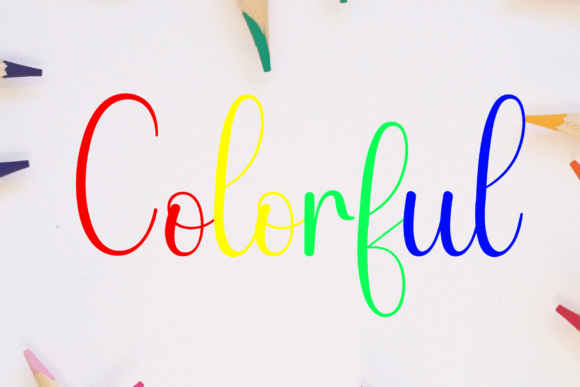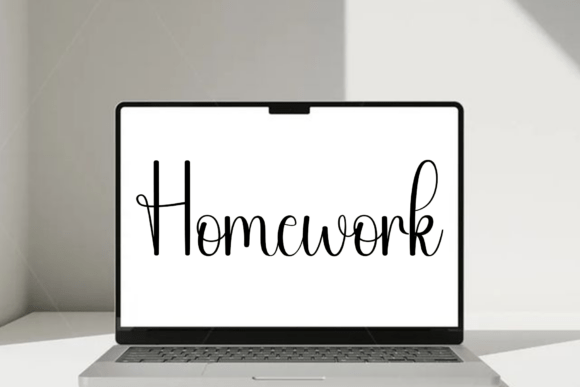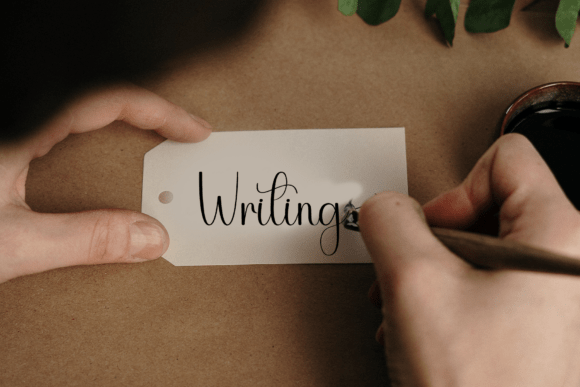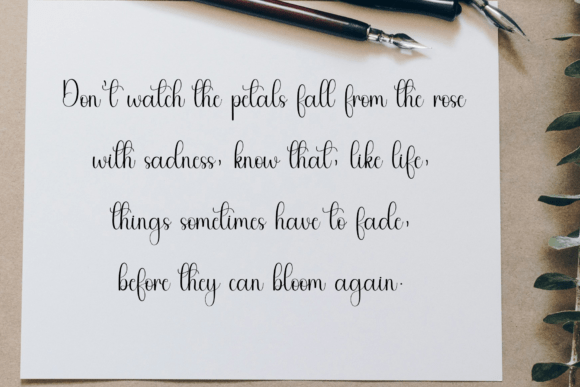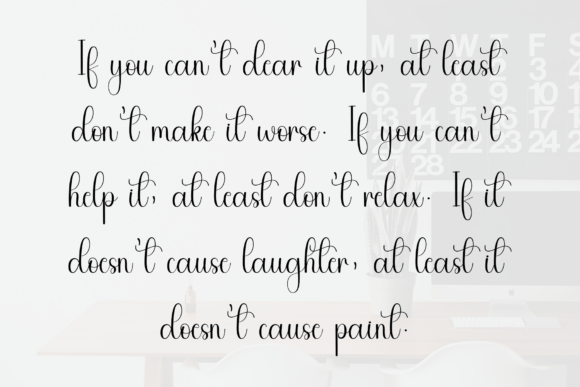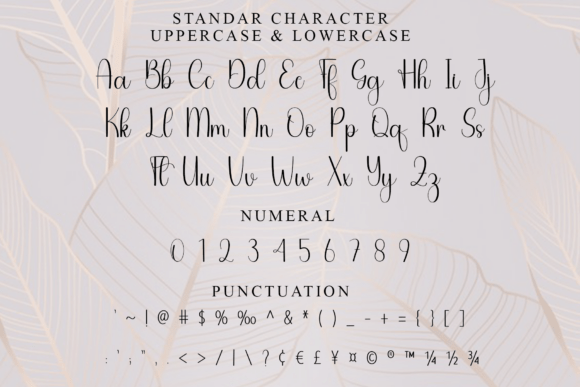
The Perfect Dance Partner for Your Designs: Introducing Ballerina Font
Have you ever stared at a blank page, eager to bring your creative vision to life, only to be halted by the daunting task of choosing the perfect font? You’re not alone. Finding the right typography can make all the difference between a lackluster design and a breathtaking masterpiece. For those seeking a friendly and approachable font that exudes warmth and charm, look no further than the Ballerina Font.
This delightful font is perfect for personal projects, invitations, and social media graphics that require a touch of whimsy and personality. Its round, playful strokes create a relaxed and approachable feel that’s sure to captivate your audience. As a valuable asset for designers, the Ballerina Font’s charming, hand-drawn aesthetic adds a unique touch to any design, setting it apart from more generic fonts.
Ballerina Font Key Features
- Font Family: Ballerina, ballerina-bold, ballerina-bolditalic, ballerina-light, ballerina-lightitalic
- Unique Characteristics: Ballerina Font features a elegant and playful design, with swashes and flourishes that add a touch of sophistication and whimsy
Ballerina Font Review
Overall, I think the Ballerina font is a lovely choice for those who want to add a touch of elegance to their designs. ✨ The flowing lines and subtle curves give it a beautiful, whimsical feel that’s perfect for feminine or children’s branding. ✨ I particularly love the way it handles text, making it easy to read even at smaller sizes. ✨
- Flattering lines and curves that add a touch of elegance
- Easy to read even at smaller font sizes
- Perfect for feminine or children’s branding
While I adore the Ballerina font, there are a few limitations that might make it less ideal for certain projects. ⚠️ For one, the font is quite delicate, so it might not be the best choice for bold, attention-grabbing headlines. ⚠️ Additionally, the lack of a bold or italic weight can make it difficult to create contrast and visual interest in text-heavy designs. ⚠️
In conclusion, the Ballerina font is a beautiful choice for designers who want to add a touch of whimsy and elegance to their projects. While it may not be suitable for every project, its unique charm and readability make it a great option for the right design.
Getting the Most Out of the Ballerina Font
To get the most out of the Ballerina font, use it in creative and whimsical ways, such as:
- Designing wedding invitations or party invitations.
- Creating digital art or illustrations.
- Adding a touch of elegance to business cards or resumes.
The Ballerina font is commonly used for:
Alternatives to Ballerina Font
Copperplate
Copperplate is a elegant, copperplate-style serif font ideal for formal invitations, wedding stationery, and other high-end designs. It’s perfect for creating a sophisticated and refined look. Copperplate is more formal than Ballerina Font, making it suitable for formal events and announcements. It’s also more ornate, with intricate details and flourishes.
Didot is a luxurious, high-end serif font that exudes elegance and sophistication. It’s perfect for creating a sense of opulence and refinement, making it ideal for luxury brands, high-end fashion, and fine dining. Didot is more refined and elegant than Ballerina Font, with a more subtle and understated look.
Playfair Display is a luxurious, high-end serif font that’s perfect for creating a sense of drama and opulence. It’s ideal for luxury brands, high-end fashion, and fine dining. Playfair Display is more ornate and elaborate than Ballerina Font, with a more dramatic and attention-grabbing look.
Great Vibes is a elegant, handwritten font that’s perfect for creating a sense of whimsy and romance. It’s ideal for wedding stationery, invitations, and other designs that require a touch of elegance and sophistication. Great Vibes is more cursive and flowing than Ballerina Font, with a more relaxed and casual look.